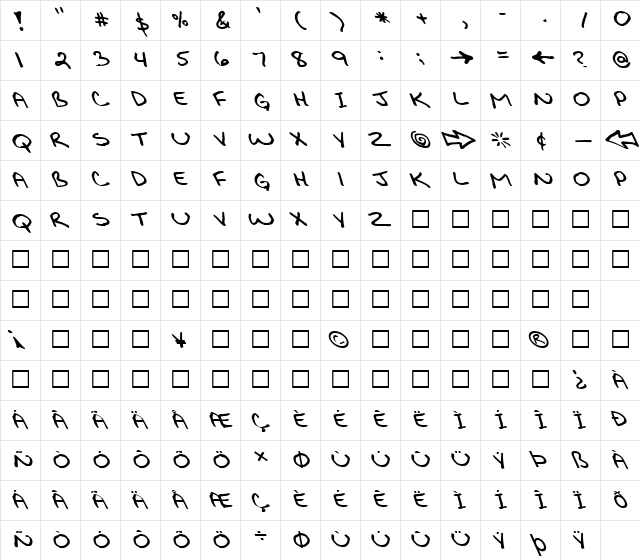
FZ JAZZY 29 LEFTY Bold
Design Context for FZ JAZZY 29 LEFTY Typeface
FZ JAZZY 29 LEFTY is a composed and adaptable typeface that performs quietly and consistently across a wide range of design contexts. The heavy weight commands attention and anchors typographic hierarchies.